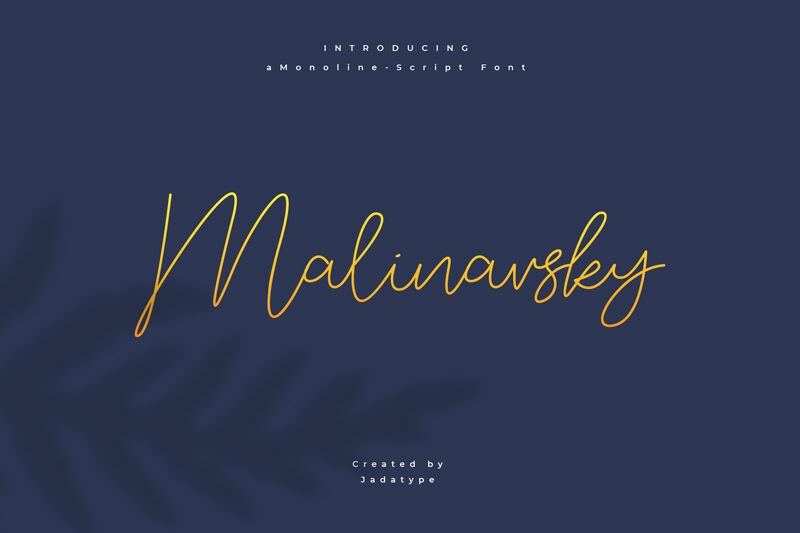
Malinavsky
Malinavsky font, crafted by Jadatype, is an exquisite handwritten typeface that captures the grace of cursive writing. With its light weight and fluid strokes, this free font exudes elegance and sophistication. Its artisanal charm makes it ideal for use in projects seeking a personal touch, such as invitations, branding, and creative design work.
The Malinavsky font’s delicate lines convey a sense of intimacy and creativity, ensuring your text stands out with flair. Perfect for designers looking to add a subtle yet impactful style to their work, its versatile aesthetic offers endless possibilities. Download this captivating font today to elevate your design projects with effortless style and readability.
Explore the unique world of handwritten fonts with Malinavsky—a remarkable choice that blends tradition with modern elegance.